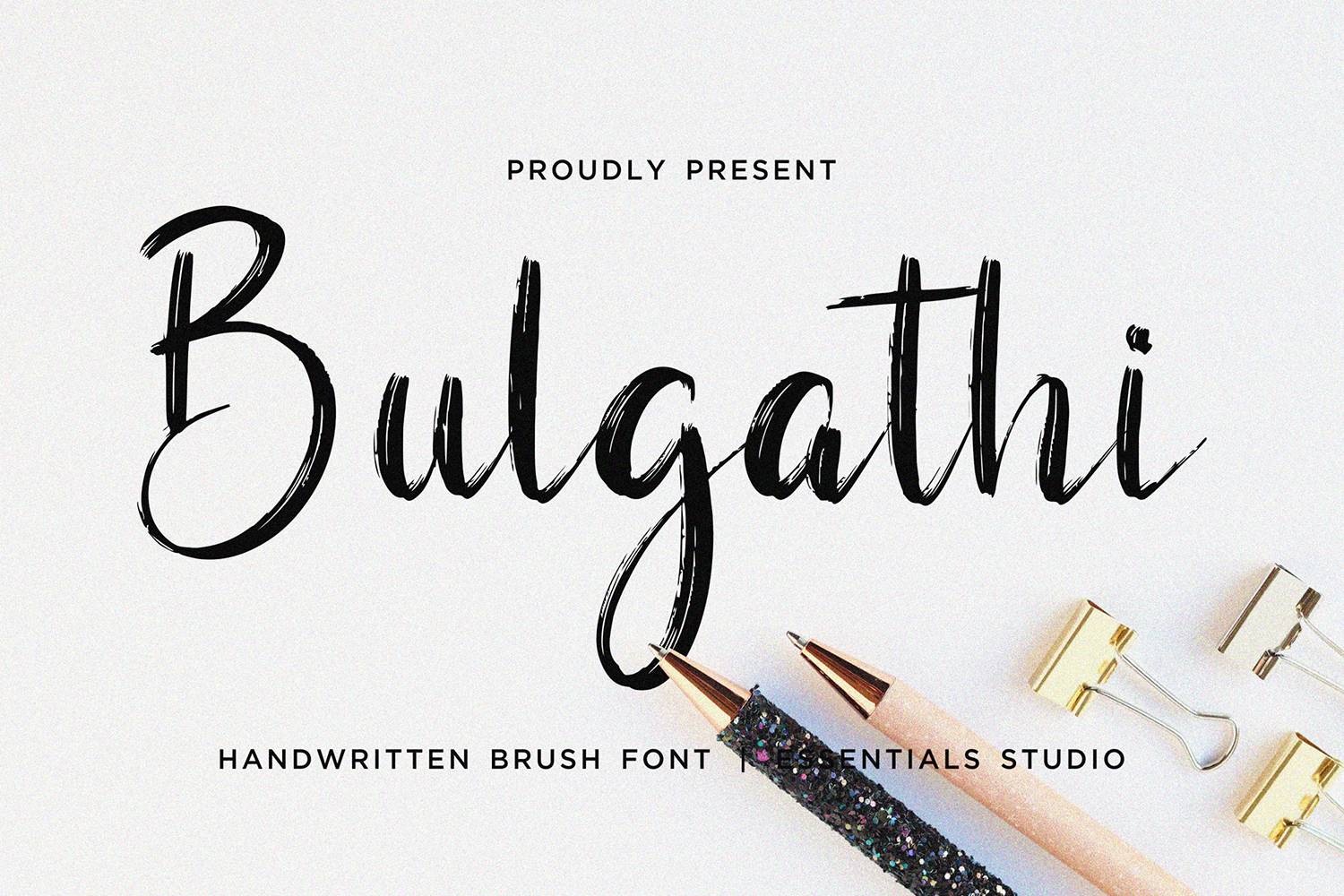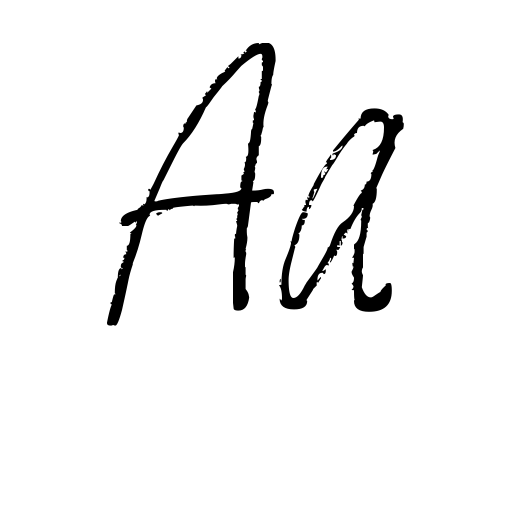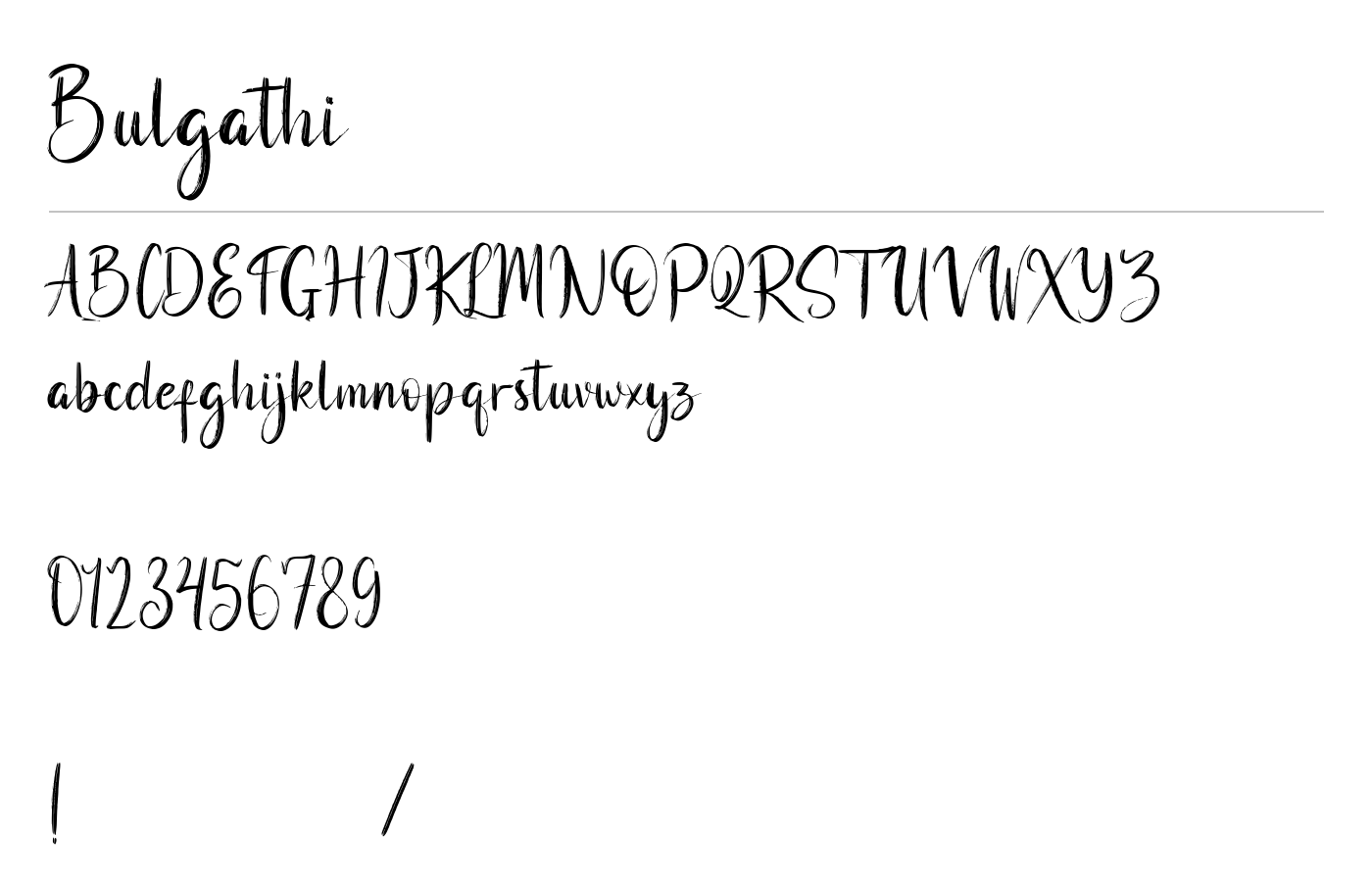
Bulgathi is a playful and elegant script font with a hand-drawn feel, featuring tall, slender letterforms and subtle stroke variations that add personality while remaining readable. Its casual yet refined style makes it perfect for creative branding, invitations, and fashion-related projects where a personal, artistic touch is desired. This font works especially well in headlines and logos, lending a warm and inviting mood to any design.
Bulgathi Font
About Bulgathi Font
| Font family | Bulgathi Font |
| Designer | Bagus Panji Asmoro |